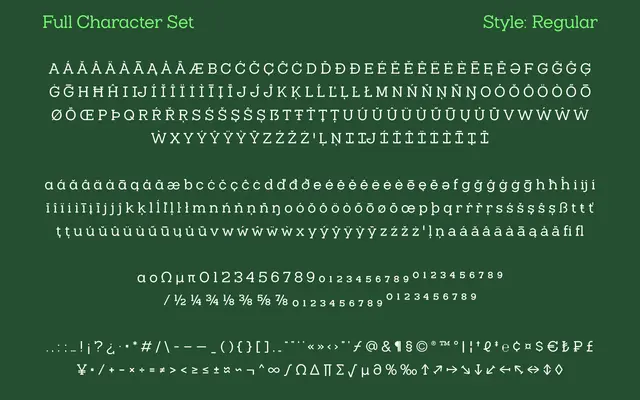
Slaab Variable Family
A variable slab serif spanning nine weights and five widths, from standard to the deliberately over-extended DumbWide.
The family runs 45 static styles across a standard width and four progressively wider cuts, topping out at an exaggerated DumbWide that pushes the proportions into display territory. Nine weights from Hair to Black are available at every width, giving considerable range for titling, editorial and branding work. OpenType features include fractions, ordinals, a two-storey 'a' alternate and a wide I, with the full family also available as a single variable font file.
The name and page content confirm a slab serif family; the variable width axis spanning standard to DumbWide widths and geometric proportions place it in the geometric slab subcategory.